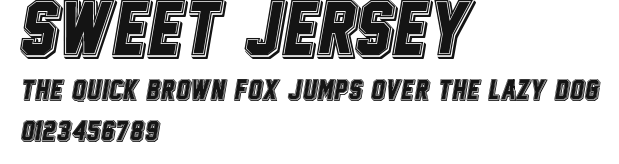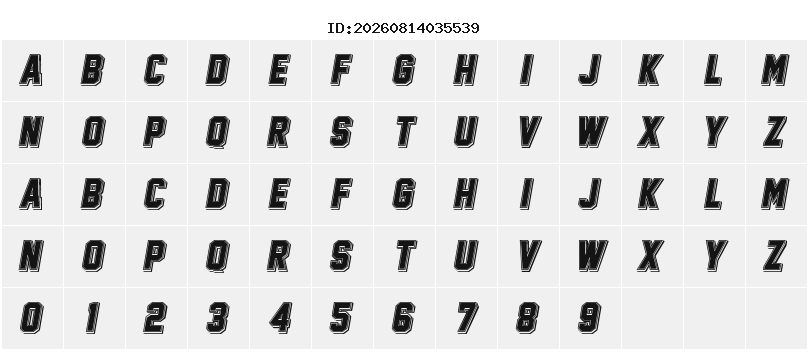
• Font Name: Sweet Jersey
• Full Font Name: Sweet Jersey
• Version: Version 1.00 March 1, 2014, initial release
About Sweet Jersey.ttf
Sweet Jersey.ttf is a modern, elegant sans-serif font designed for ultimate readability and visual harmony. Perfect for branding, headlines, web design, and print materials.